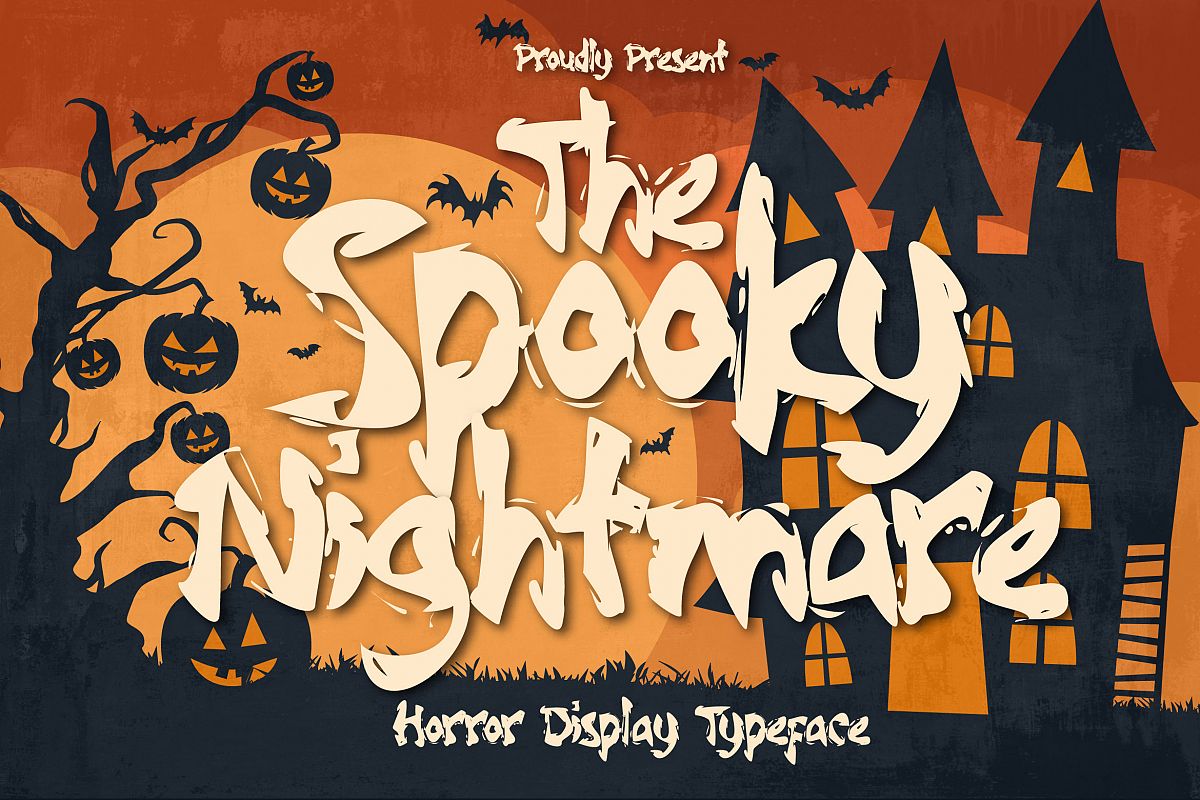
Spooky Nightmare - Horror Display Typeface
Spooky Nightmare
We just introducing of our new product the name is Spooky Nightmare Horror Display Typeface. Spooky Nightmare good for helloween poster, horror poster, cartoon, t shirt, childrenbook, etc.